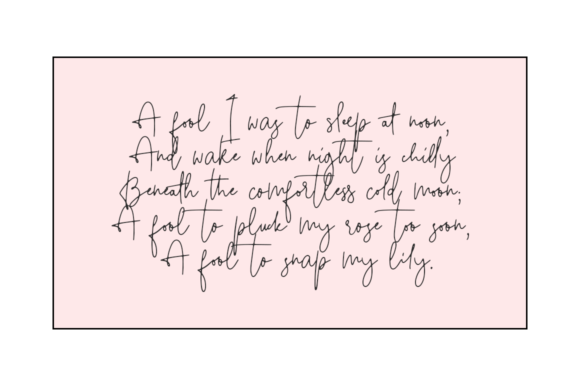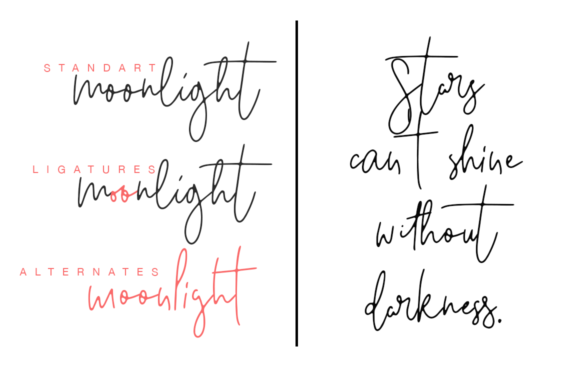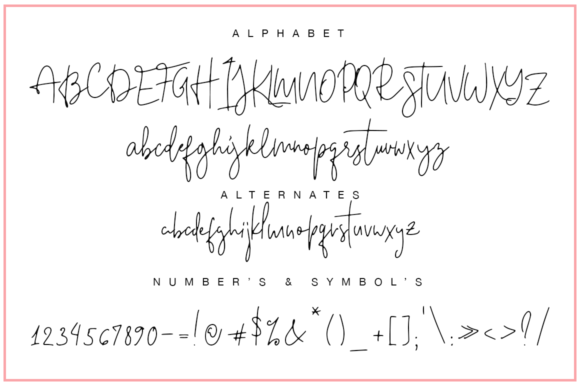
Introduction to Hello My Darling Font
Hello My Darling is a simple, flowing and delicate handwritten font.
It is PUA encoded which means you can access all of the glyphs and swashes with ease Fall in love with its incredibly versatile style and use it to create spectacular designs.
Key Features of Hello My Darling Font
Why Choose Hello My Darling Font?
Hello My Darling Font offers exceptional quality and versatility, making it a valuable addition to your design toolkit. Whether you’re creating for personal projects or commercial use, Hello My Darling Font delivers professional results.